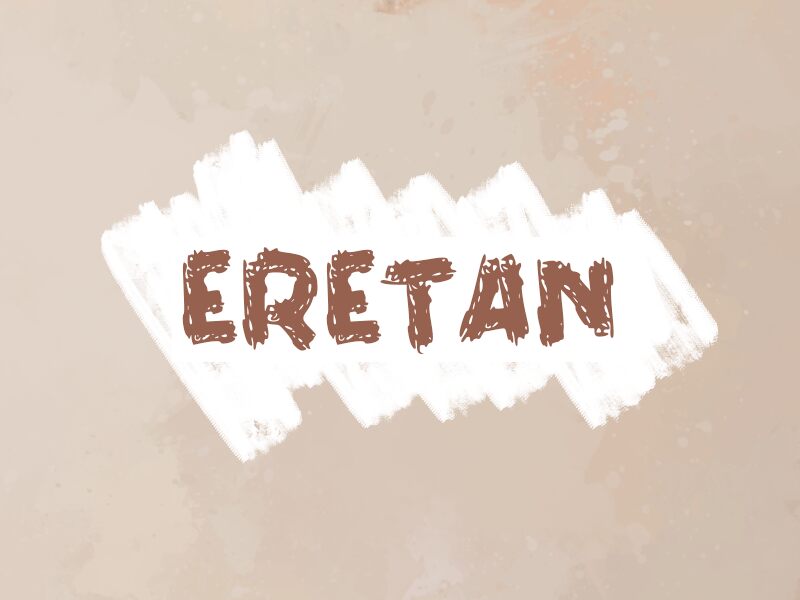
ERETAN
Eretan, a bold script font designed by wep, boasts a unique trash style that breathes life into any project.
With its bold weight and expressive curves, this font is perfect for eye-catching logos and headlines that demand attention. Its edgy and rebellious nature makes it an excellent choice for album covers and tattoo designs. Eretan's versatility shines through when used in movie posters or fashion editorials, adding an element of grunge and street art flair.
Let your creativity run wild with Eretan – the ultimate choice for projects seeking an unconventional yet captivating aesthetic.